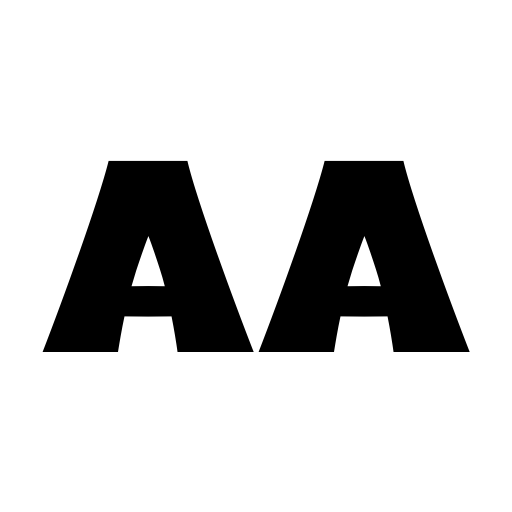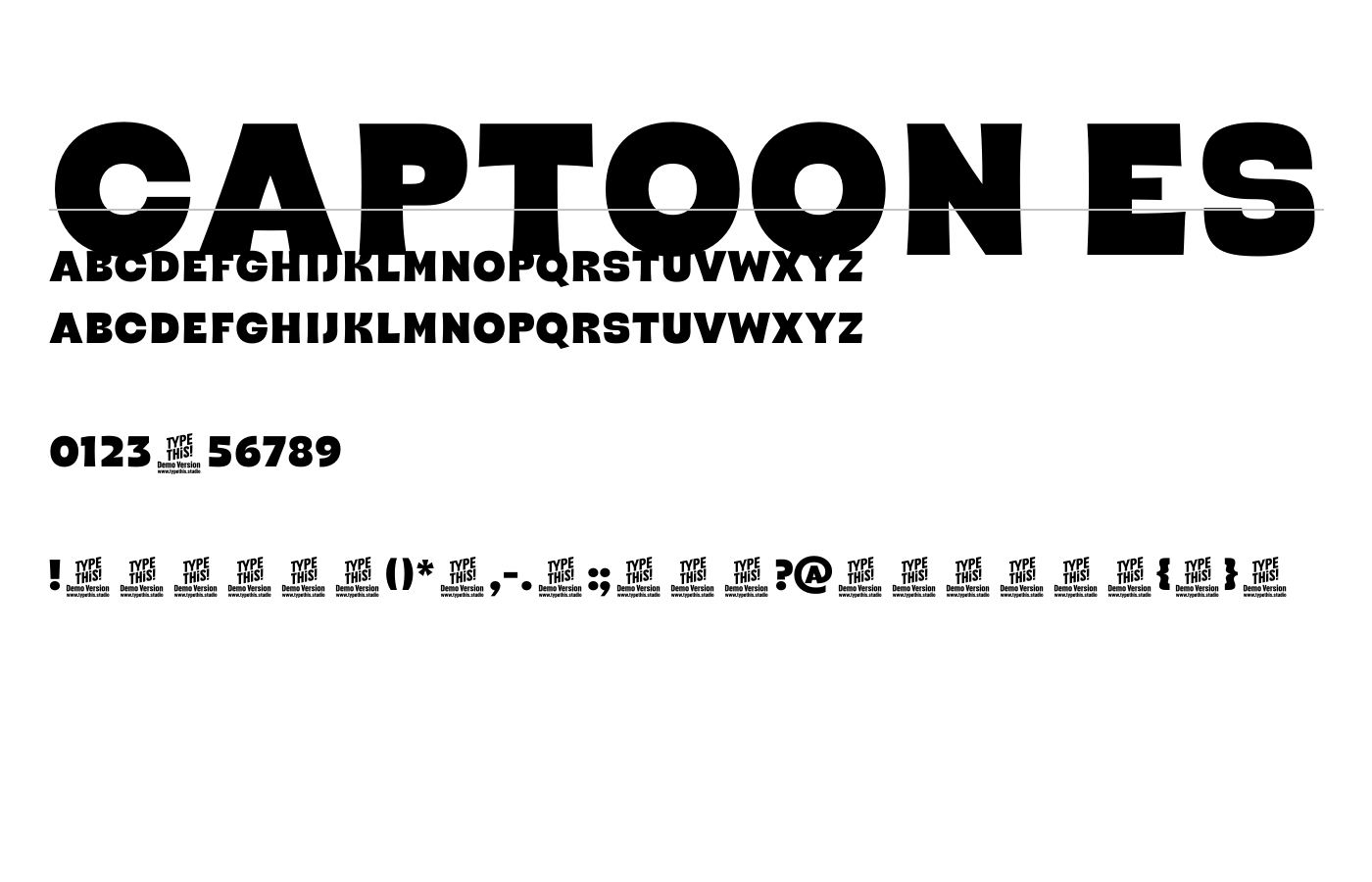
Captoon ES is a bold, playful sans serif font with a strong and chunky appearance that gives it a fun, cartoonish vibe. Its exaggerated shapes and heavy weight make it perfect for eye-catching headlines, logos, and designs that need a lively, informal feel. This font works especially well in children's media, posters, and branding where a sense of energy and whimsy is desired.
Captoon ES Font
About Captoon ES Font
| Font family | Captoon ES Font |
| Designer | Anita Jürgeleit |